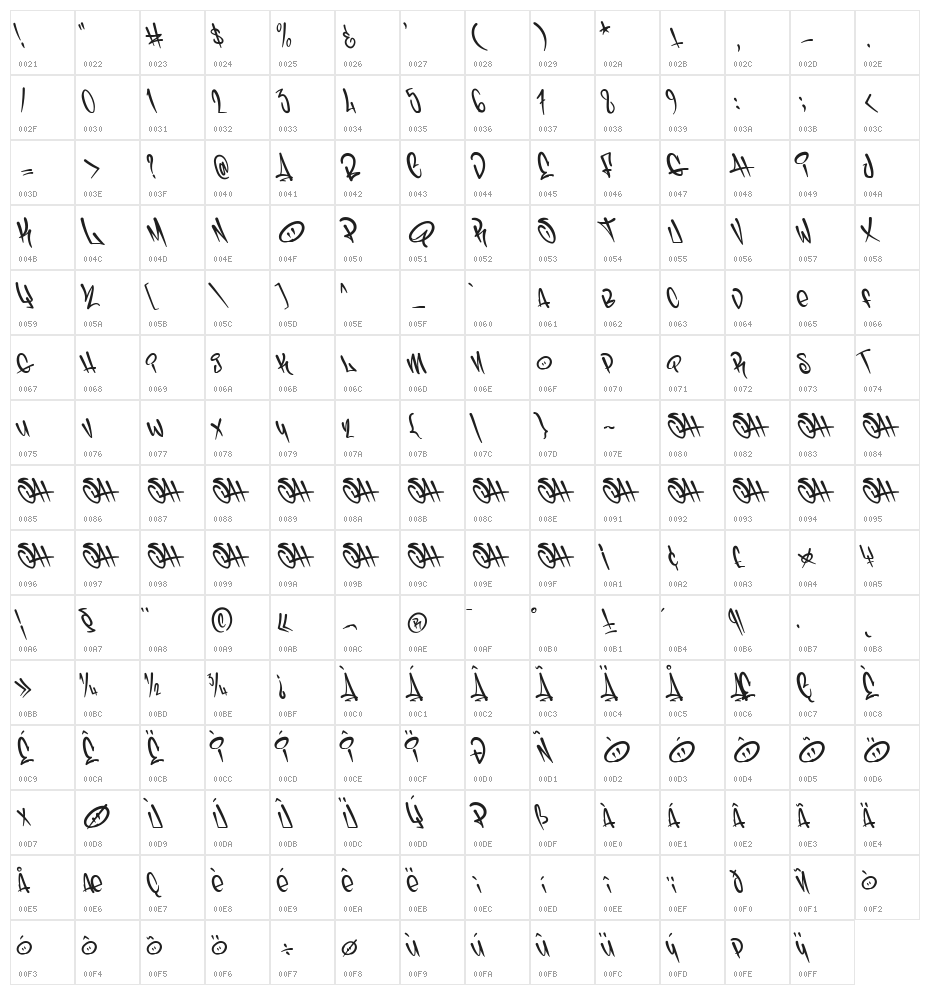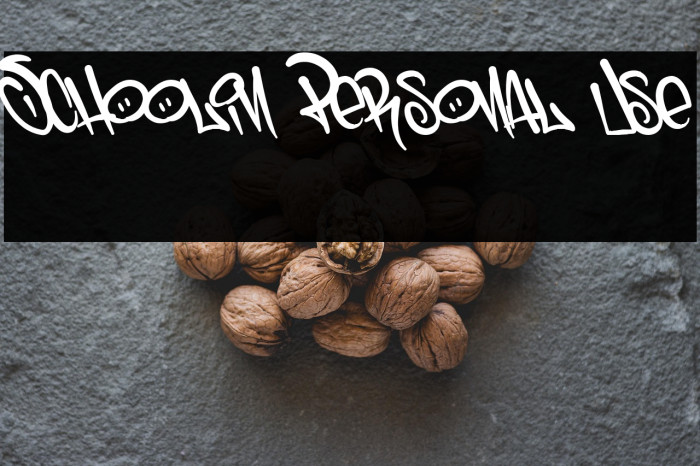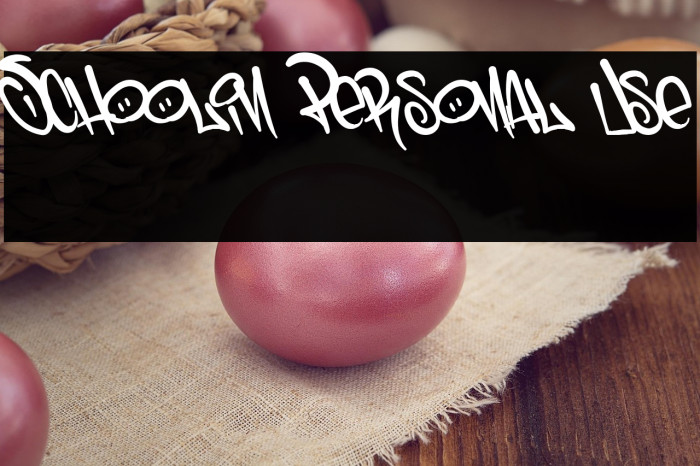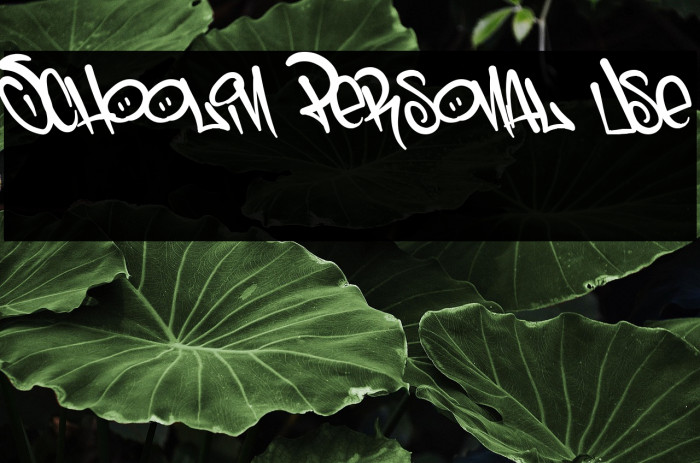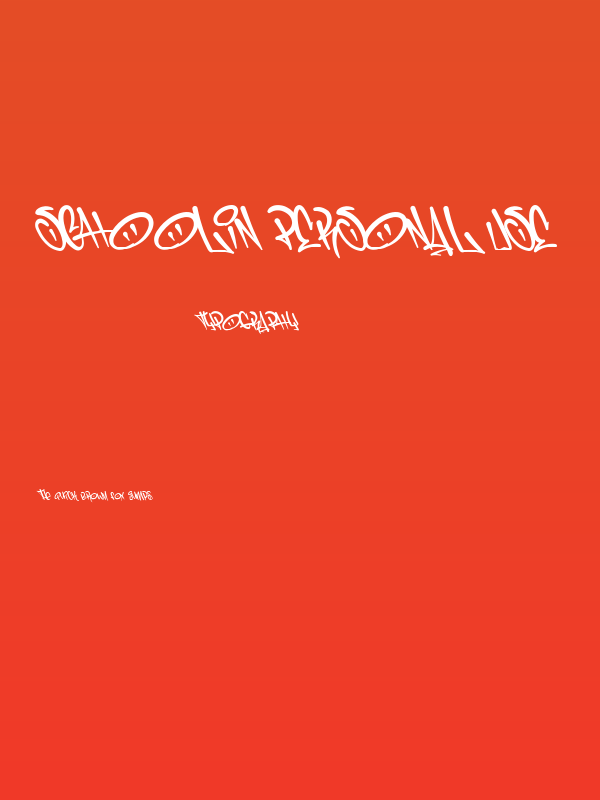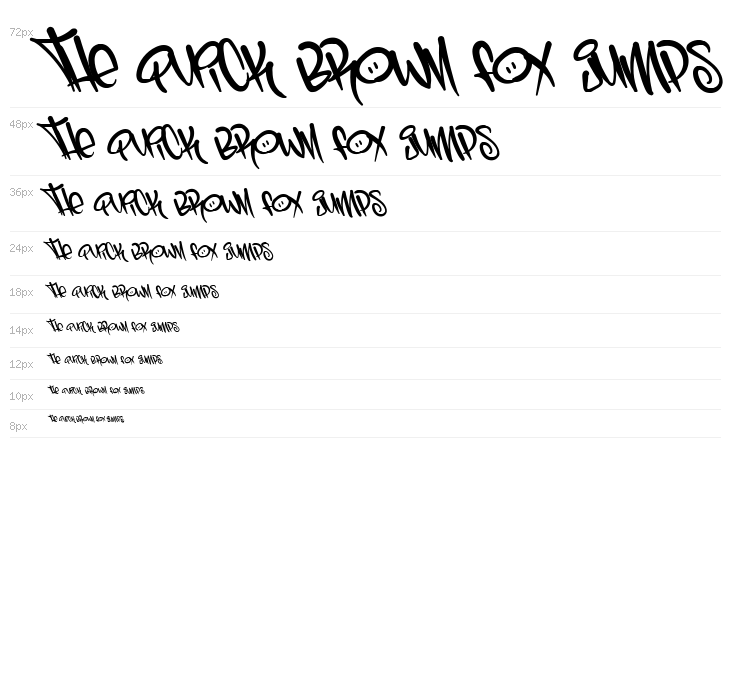
Schoolin Personal Use Font
Schoolin Personal Use Description
This font features a dynamic and expressive graffiti style, characterized by its bold, sweeping strokes and energetic flair. The letters are highly stylized with a sense of movement, often overlapping and intertwining, which gives it a lively and urban feel. The uppercase and lowercase letters maintain a consistent aesthetic, while the numbers and special characters complement the overall design with their unique, artistic forms. This font captures the essence of street art, making it ideal for projects that require a bold, unconventional look.
| Overall Style | Urban, Graffiti, Expressive |
| Use Case | Logos, Posters, Album Covers |
| Proposed Projects | Ideal for street art-inspired designs, urban-themed posters, music album covers, and edgy branding projects. |